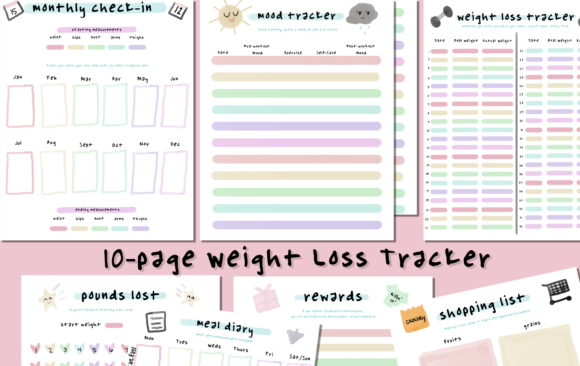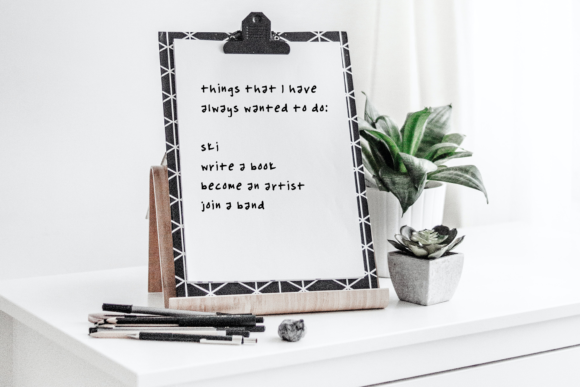
Dream Come True Font
About Dream Come True Font
Dream Come True is a cute and modern font that is great for inspirational posters, printables, and projects that need distinct handwriting. Its perfectly-imperfect appeal will draw attention to every instance where it is used! Being a little outside the box, it is great for playful projects as well.